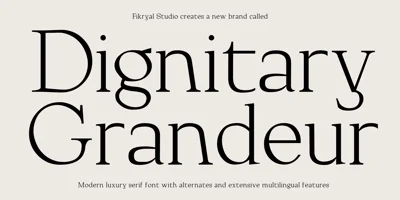
Dignitary Grandeur Font
Dignitary Grandeur Font is perfect for prestigious design projects including diplomatic organizations, government institutions, ceremonial invitations, state functions, embassy communications, royal ceremonies, prestigious awards, and official state campaigns. This distinguished typeface excels in presidential libraries, diplomatic missions, ceremonial protocols, state universities, and projects that celebrate institutional dignity and governmental authority with utmost respect and formal elegance.
What makes Dignitary Grandeur Font exciting is its majestic institutional character that perfectly captures the essence of state authority and diplomatic excellence. The font features regal letterforms with ceremonial proportions that reflect the solemn dignity and official grandeur of governmental institutions. Its stately design elements embody the spirit of diplomatic protocol and institutional prestige, making it perfect for projects that need to convey official authority, ceremonial importance, and connection to state heritage. The carefully crafted dignified details create an atmosphere of governmental sophistication and diplomatic respect.
Dignitary Grandeur Font comes in multiple family variations including ceremonial, presidential, diplomatic, and state styles. Each weight maintains the distinctive institutional character while offering different levels of official intensity and governmental presence. The font family includes diplomatic alternates, ceremonial ligatures, and state variations that provide designers with comprehensive options for creating truly prestigious and officially authentic typographic compositions that honor institutional traditions.
Whether you're designing governmental branding, creating diplomatic marketing materials, or developing ceremonial promotional graphics, Dignitary Grandeur Font provides the perfect typographic foundation for projects that celebrate institutional excellence and state authority. This extraordinary typeface transforms ordinary text into compelling expressions of diplomatic wisdom and governmental dignity. Download this distinguished font today and honor your design projects with the ceremonial elegance and institutional authority that captures the eternal spirit of state dignity and diplomatic excellence.